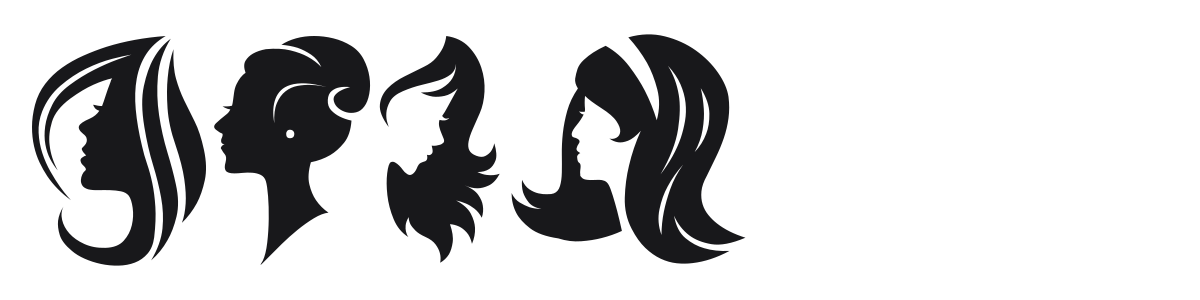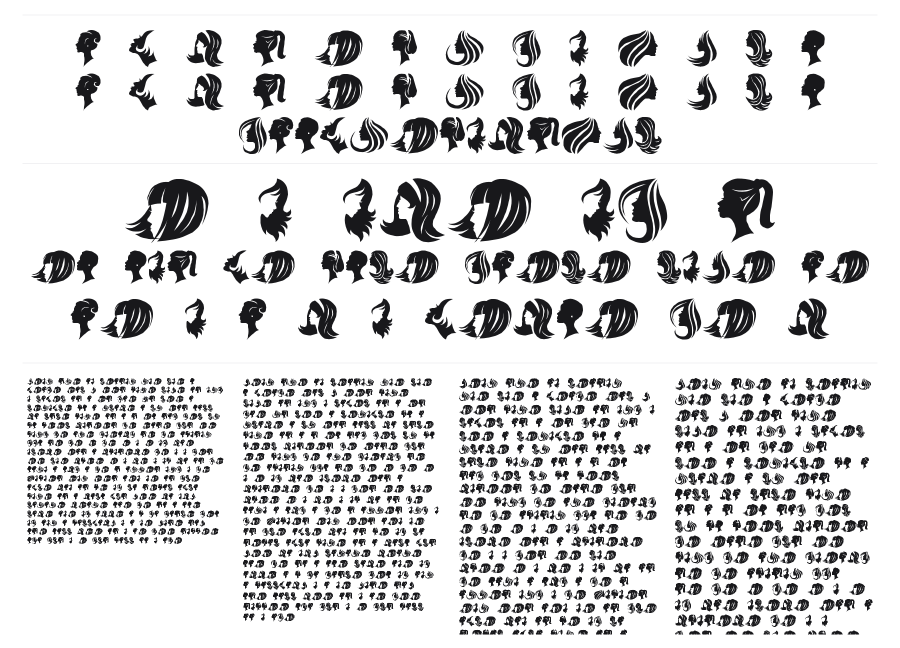
Haircut
Haircut is a dingbat font featuring a collection of bold female profile silhouettes, each one showcasing a different hairstyle. The icons range from sleek bobs and elegant updos to wild flowing waves, all rendered in clean solid black. Useful as decorative elements, section markers, or branding assets for anything in the beauty or fashion space.